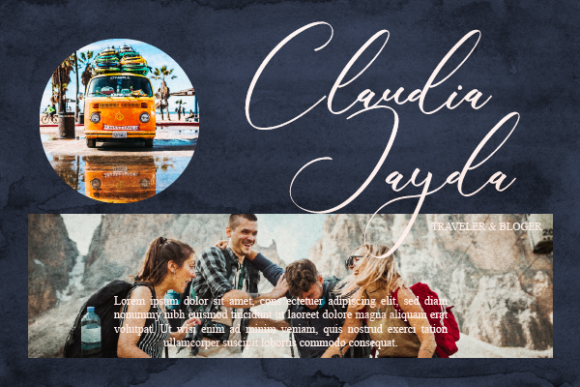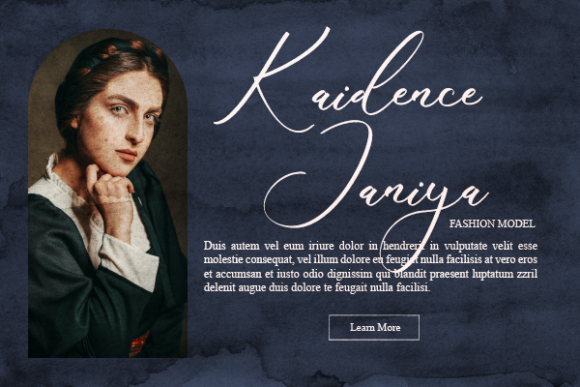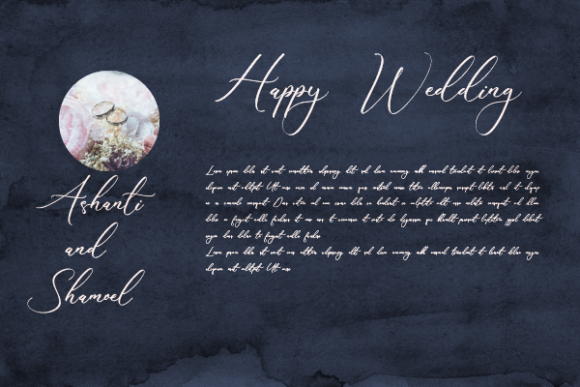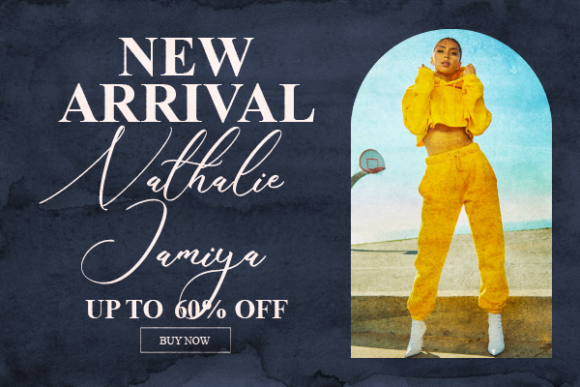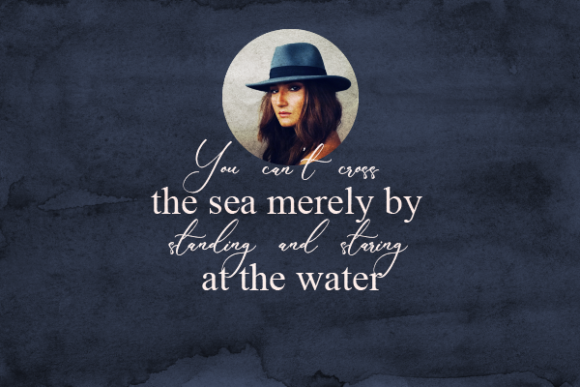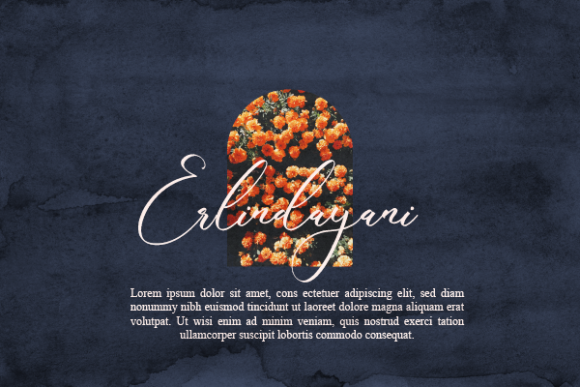
Ashanti Stephanie Font: Elevate Your Design Game
Have you ever stared at a blank page, trying to conjure up the perfect font for your next project? The cursor blinks, taunting you, as your mind wanders through a sea of sans-serifs and serifs. Suddenly, a spark of creativity strikes, and you envision a delicate, handwritten script that captures the essence of your brand.
Enter Ashanti Stephanie Font, a beautiful and stylish script font that’s tailor-made for designers who crave a touch of elegance in their work. Whether you’re creating logos, designing t-shirts, or crafting creative products, this font is sure to elevate your designs to new heights. With its versatility and refined aesthetic, Ashanti Stephanie Font is a valuable addition to any designer’s toolkit.
- Unique Characteristics: This script font features a mix of cursive and brush strokes, with a touch of elegance and sophistication. It is ideal for creative and artistic projects, such as invitations, wedding stationery, and packaging design.
- X-Height: 0.88 (relatively high x-height for a script font)
Ashanti Stephanie Font Review
Overall, I’d say that Ashanti Stephanie Font has some great qualities, but it also has some areas where it falls short.
- ✨ Elegant Script: Ashanti Stephanie Font has a beautiful, flowing script that makes it perfect for adding a touch of elegance to your designs.
- ✨ High-Quality Glyphs: The font has a high level of detail, with well-crafted glyphs that make it suitable for a wide range of applications.
- ✨ Versatile: Ashanti Stephanie Font is a versatile font that can be used for both formal and informal designs.
- ⚠️ Limited Character Set: Ashanti Stephanie Font has a limited character set, which can make it difficult to use for certain languages or applications.
- ⚠️ Not Ideal for Body Text: While the font is great for headings and titles, it’s not the best choice for body text due to its ornate nature.
Overall, Ashanti Stephanie Font is a great choice for designers who want to add a touch of elegance to their designs. However, it’s not the most versatile font, and it may not be suitable for all applications. With some careful consideration of its limitations, this font can be a valuable addition to your design toolkit.
Getting the Most Out of Ashanti Stephanie
Ashanti Stephanie is a unique, elegant font that works well in headings and titles. To get the most out of it:
- Use it sparingly to create visual hierarchy.
- Pair it with a clean, modern font for body text.
- Experiment with different font sizes and colors to create contrast.
Ashanti Stephanie is ideal for:
- Luxury brand marketing materials.
- High-end event promotions.